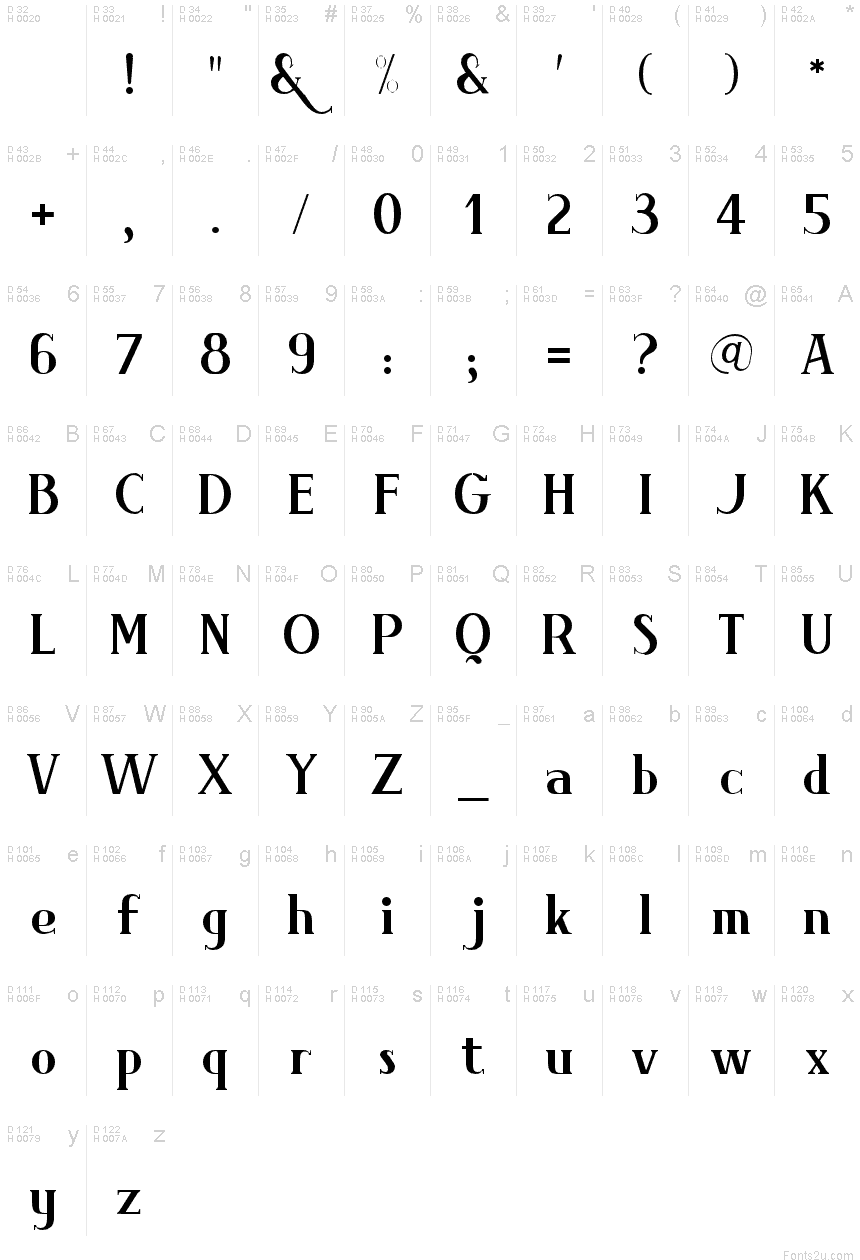
Brimborion Light is a free light serif font with dramatic stroke contrast and the poised formality of a fashion display face. Its slender hairlines meet broad upright strokes, with crisp serifs and tightly drawn curves.
As an elegant editorial voice, it suits fashion mastheads and cultural event posters that favor refined, theatrical lettering. Its tall silhouette also lends a period-conscious edge to fragrance packaging and boutique branding, where the letters can function like part of the product's ornament.